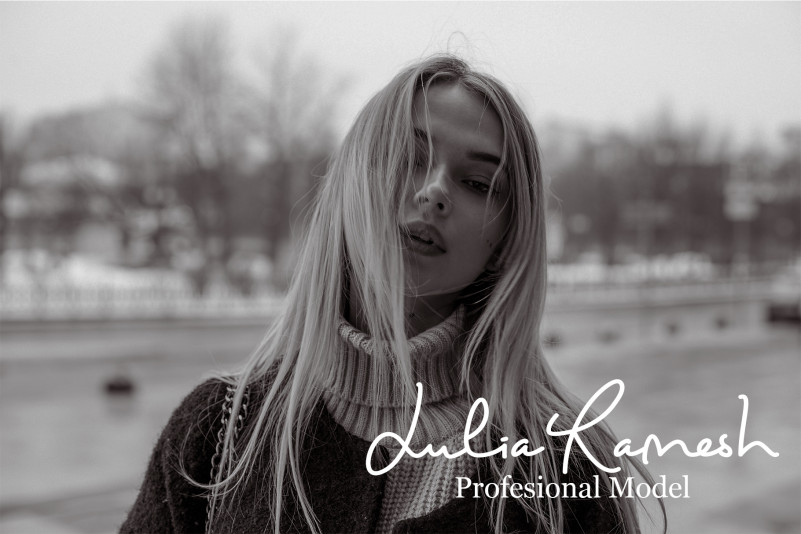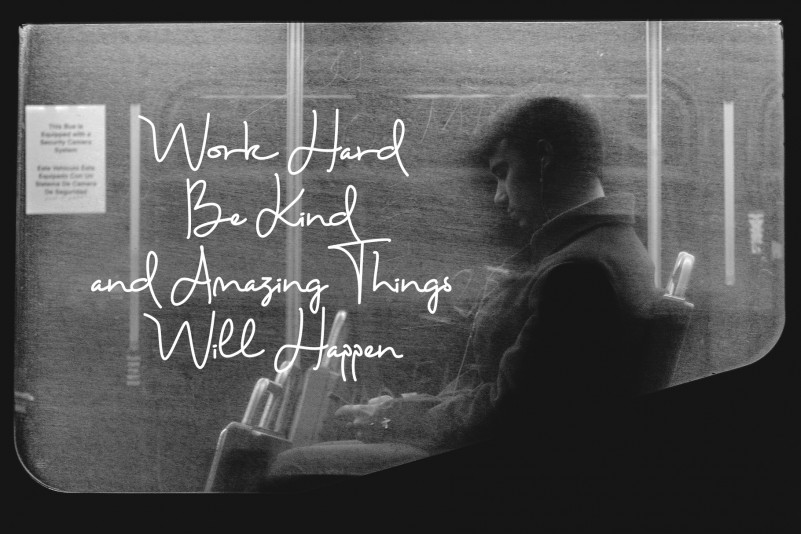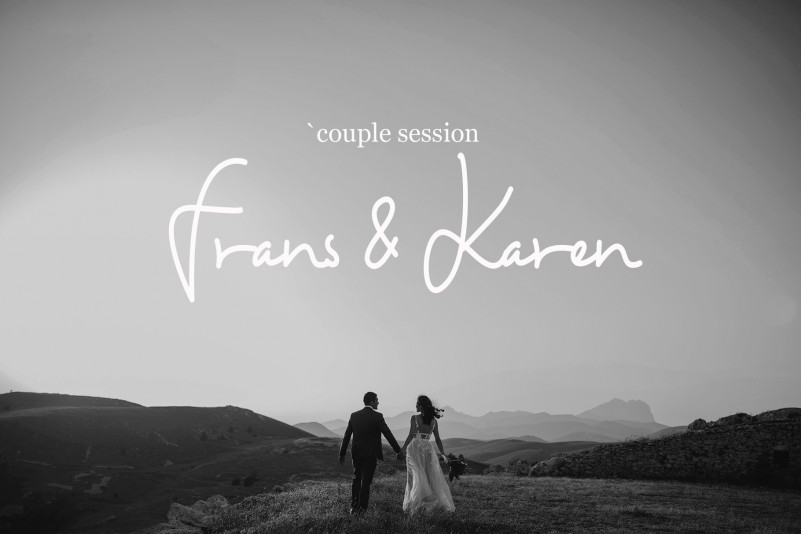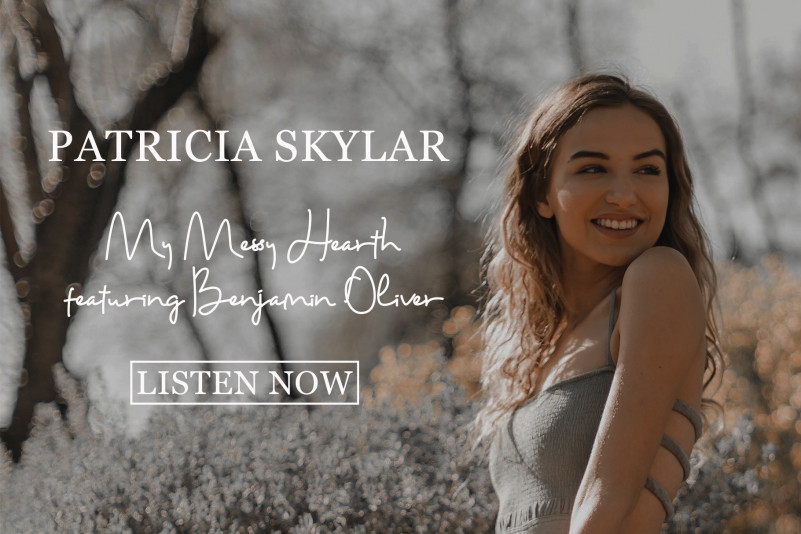
Haisley Mind – Handwritten Script Font
Haisley Mind – Handwritten Script Font is an unique monoline signature script. It has an simple flow with a natural and organic look. Haisley Mind font collection of scripts is perfect for valentine, wedding and branding.